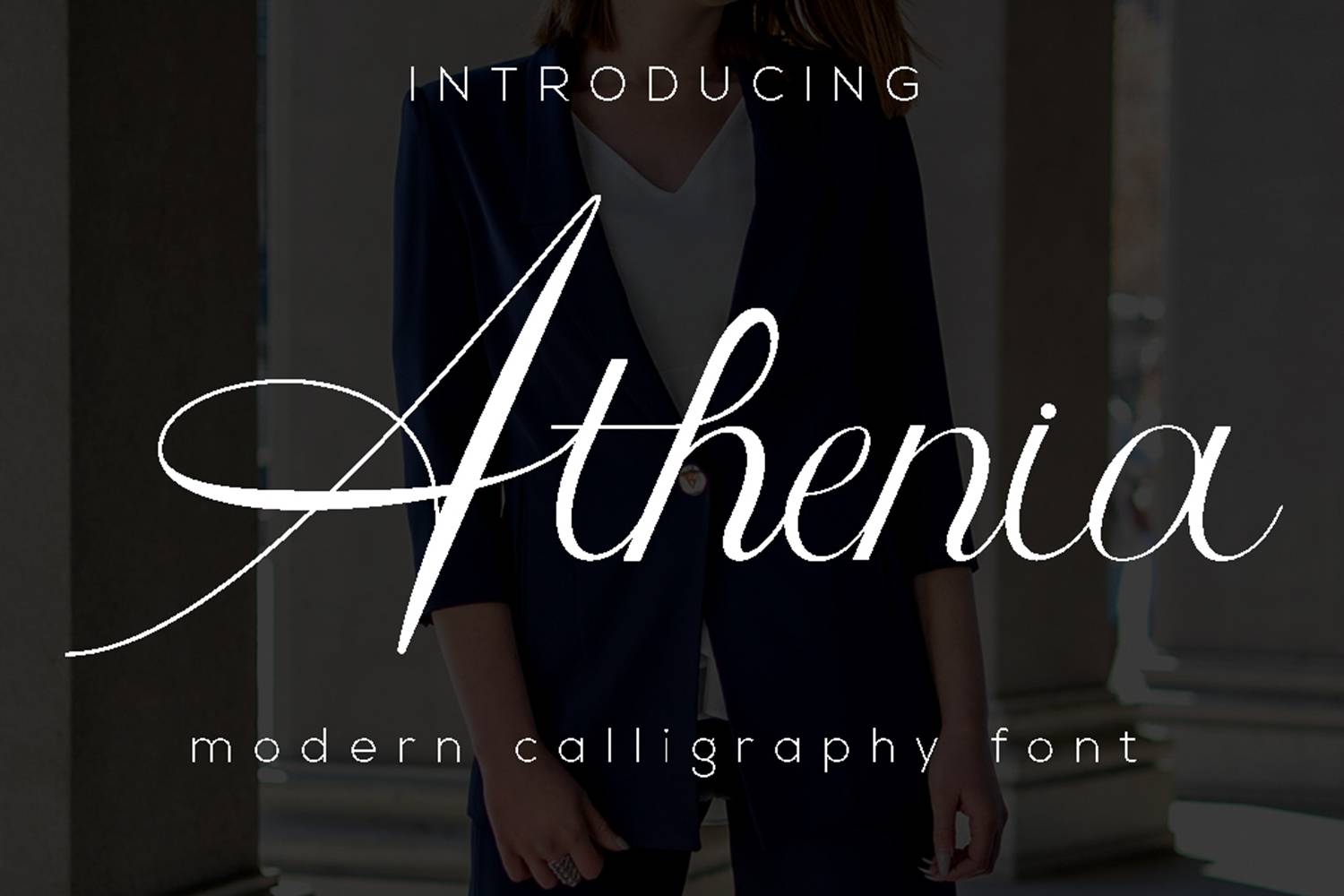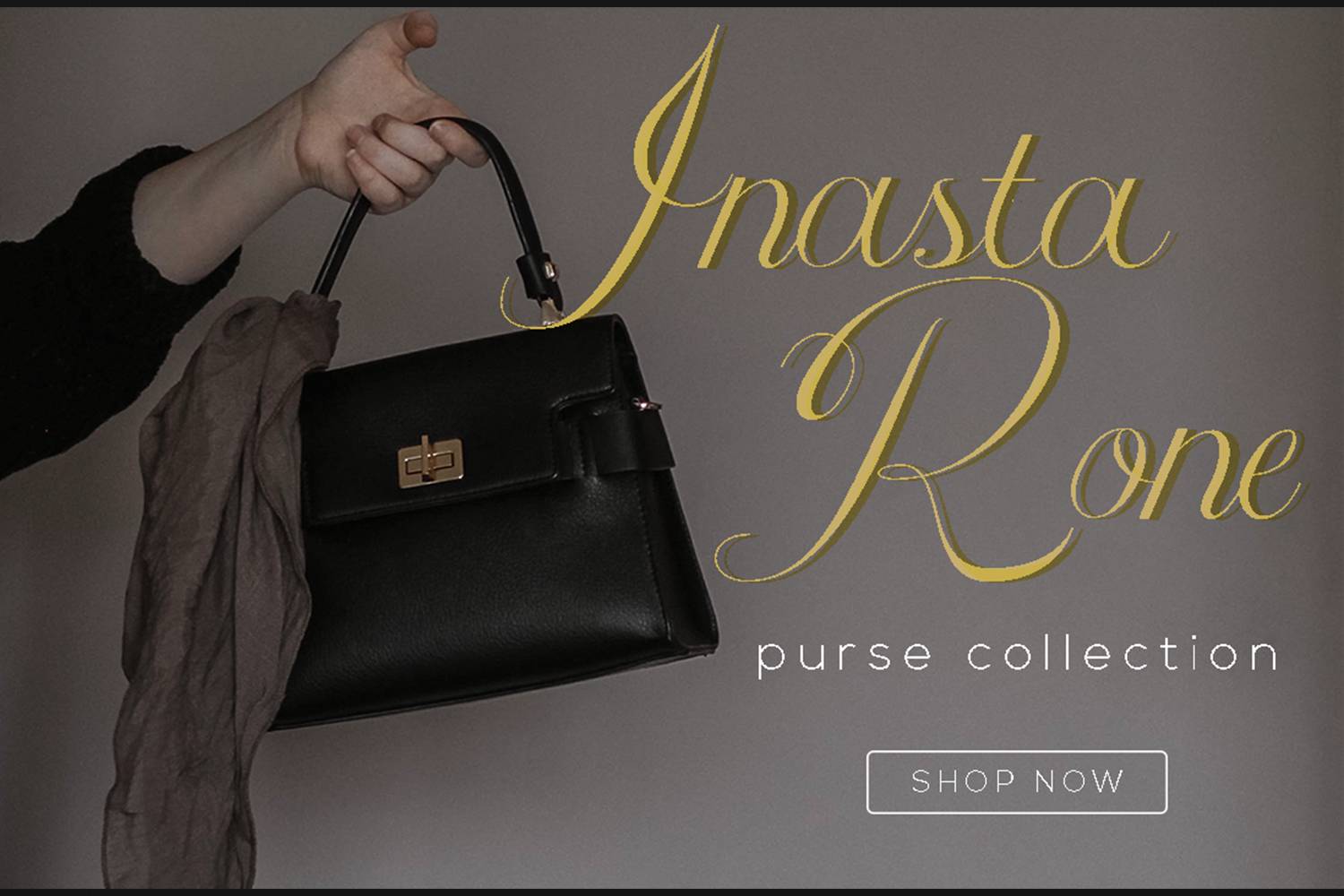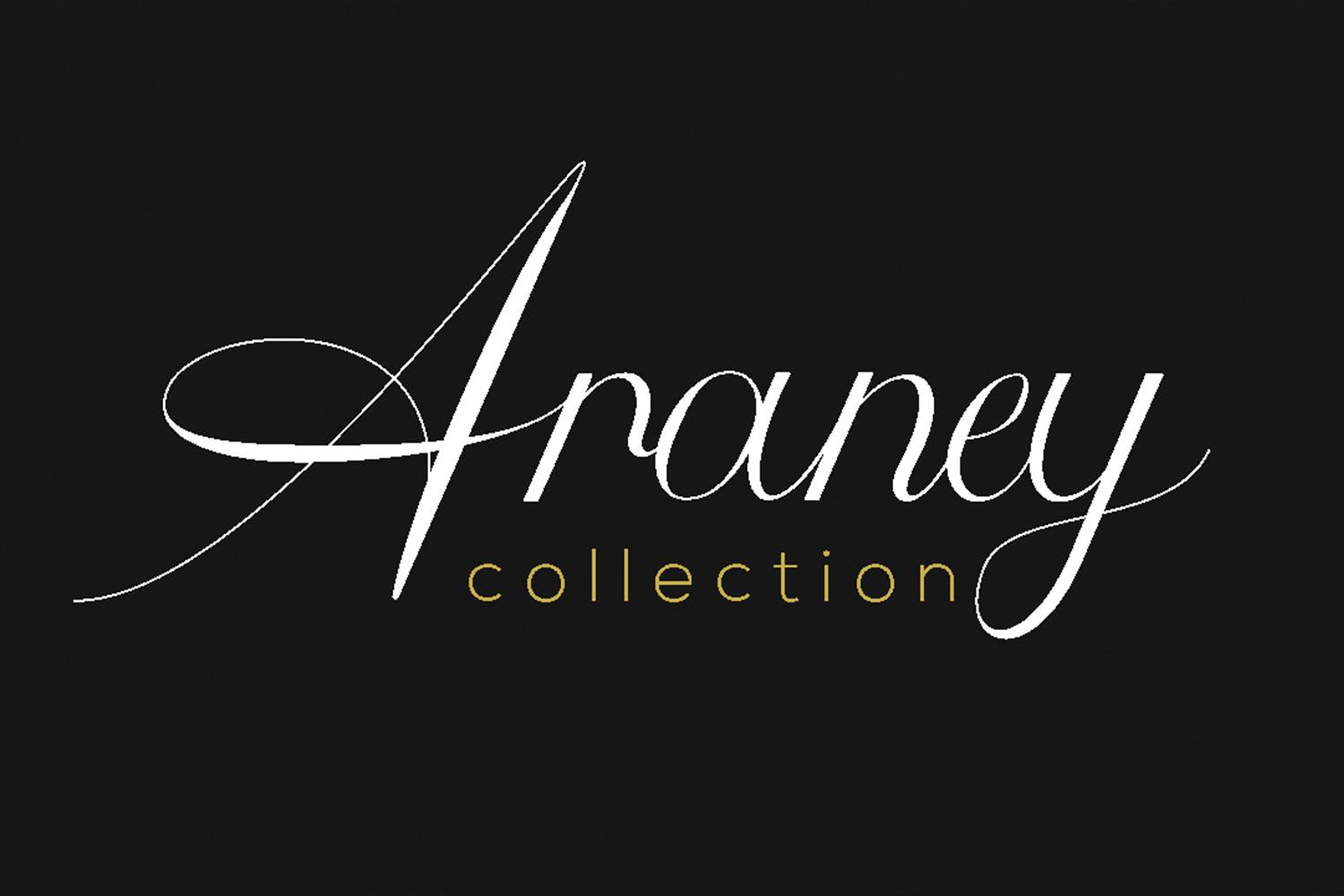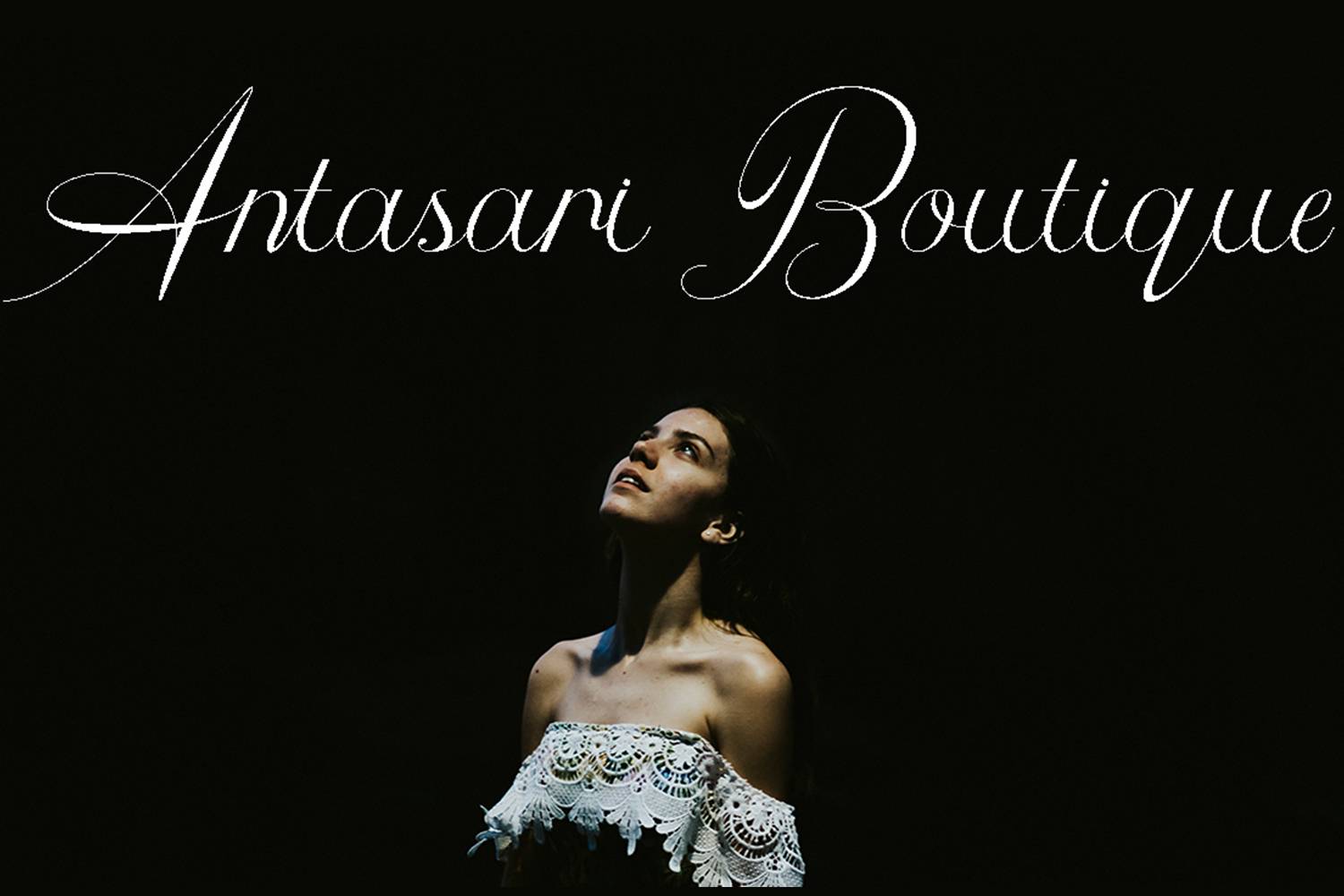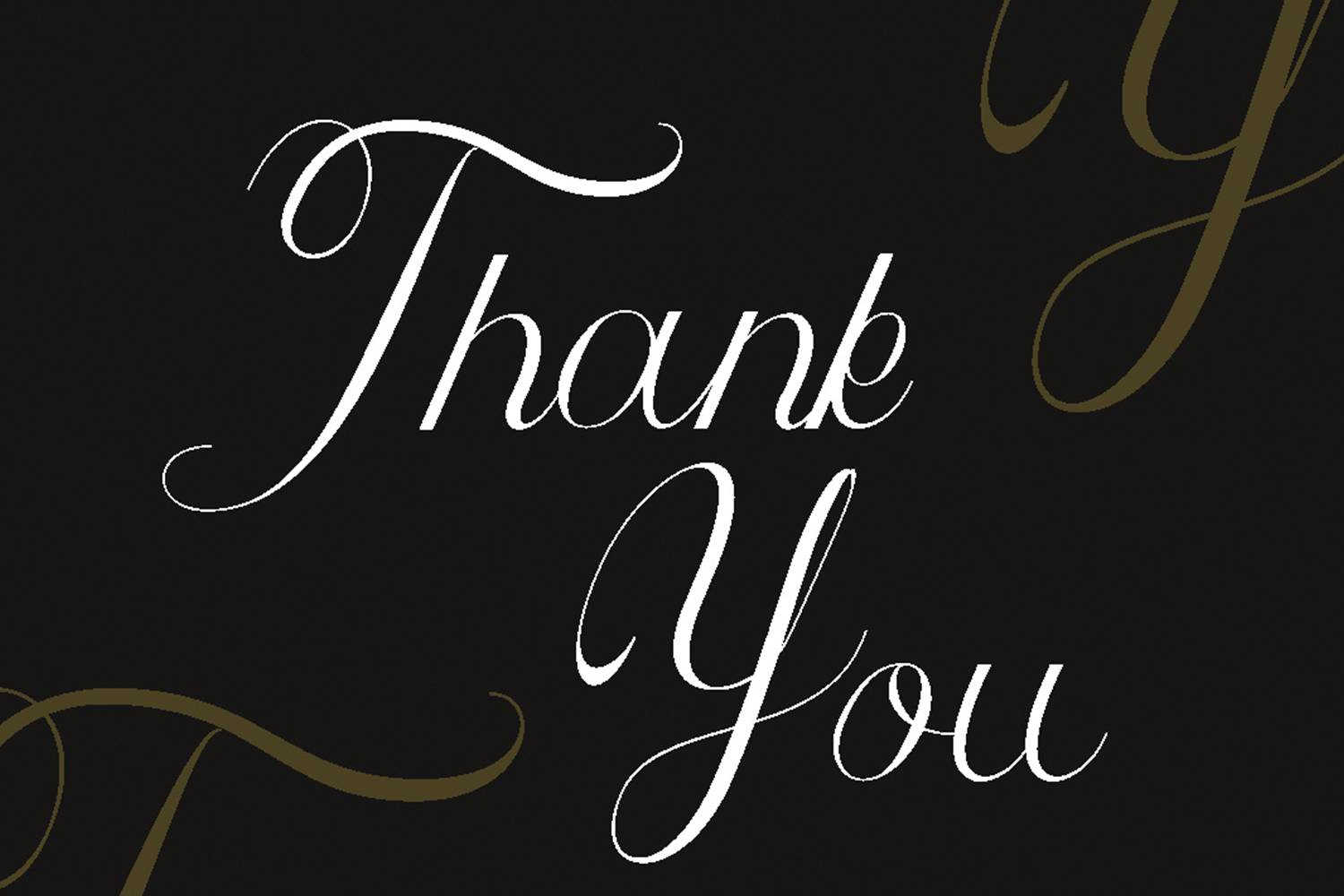
Athenia is an elegant and delicate script font characterized by its thin, flowing strokes and sophisticated calligraphic style. Its graceful letterforms with high contrast and ornamental swashes make it perfect for luxury branding, wedding invitations, and refined editorial design where a touch of timeless beauty and sophistication is desired. This font conveys a sense of finesse and classic charm, ideal for projects seeking a stylish and graceful look.
Athenia Font
About Athenia Font
| Font family | Athenia Font |
| Designer | Attypestudio |